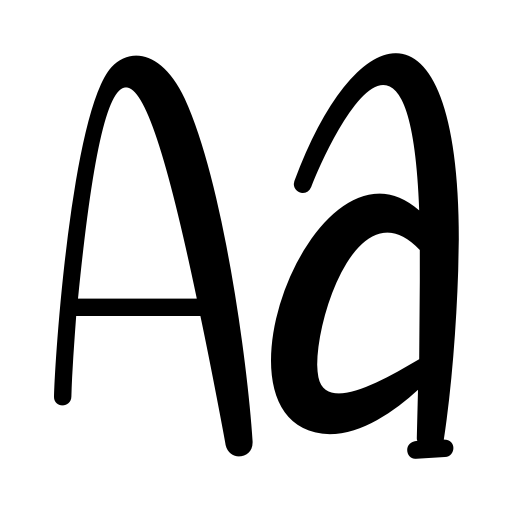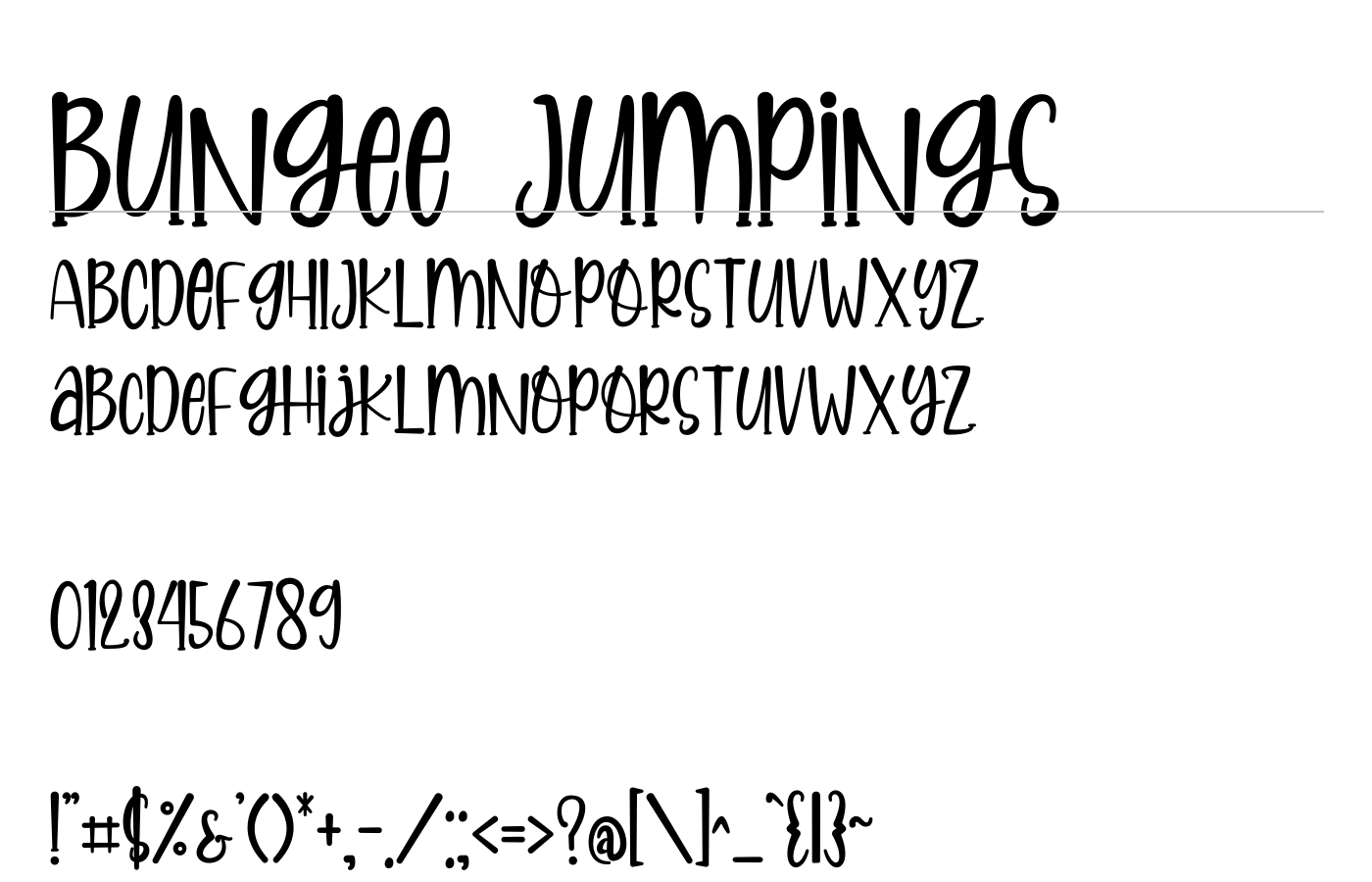
Bungee Jumpings is a playful and casual handwritten sans serif font characterized by tall, narrow letterforms with uneven stroke widths and whimsical curves. Its light weight and lively style make it perfect for adding a fun, friendly vibe to designs targeted at children, informal branding, posters, or creative projects where a relaxed and approachable tone is desired. This font works well for headlines and display use, bringing a sense of energy and personality without compromising legibility.
Bungee Jumpings Font
About Bungee Jumpings Font
| Font family | Bungee Jumpings Font |
| Designer | Arief Tri Sulistiyono |